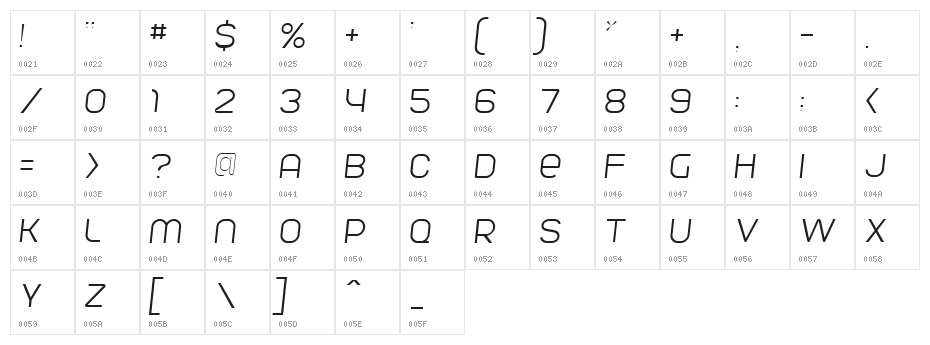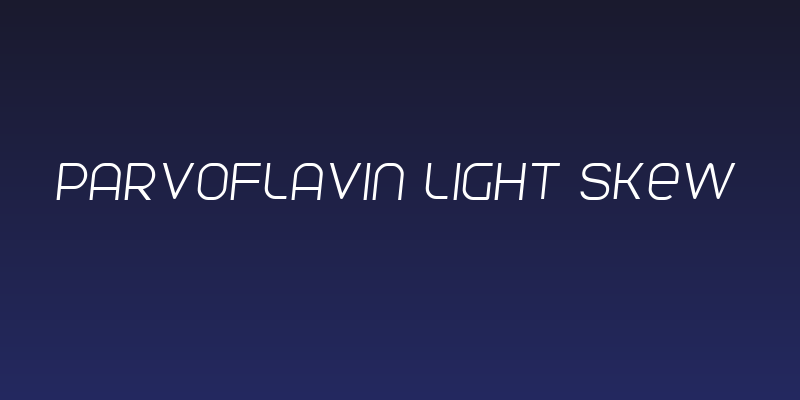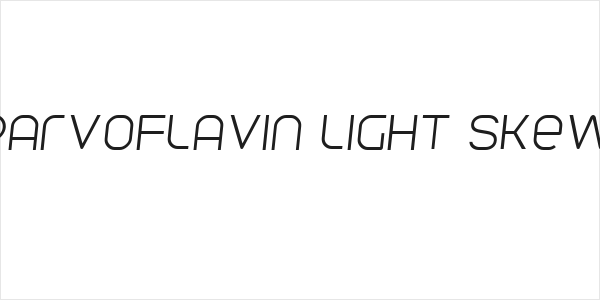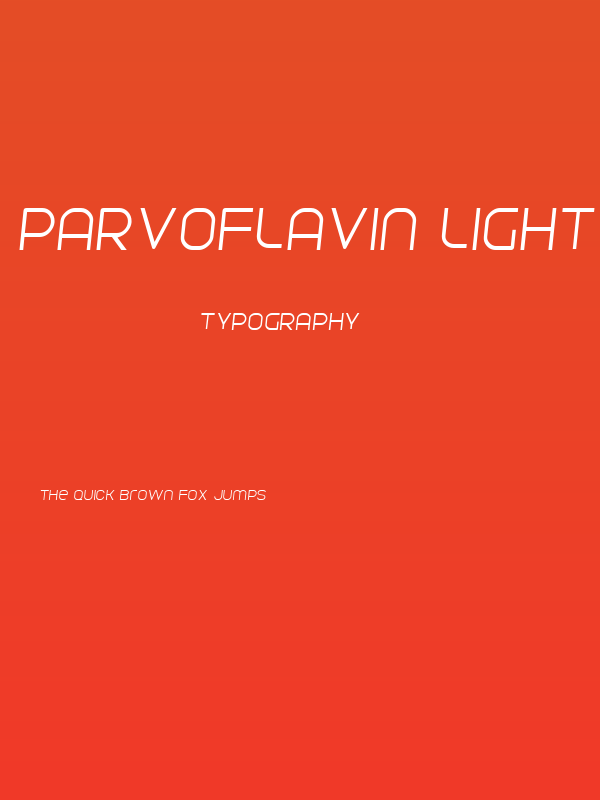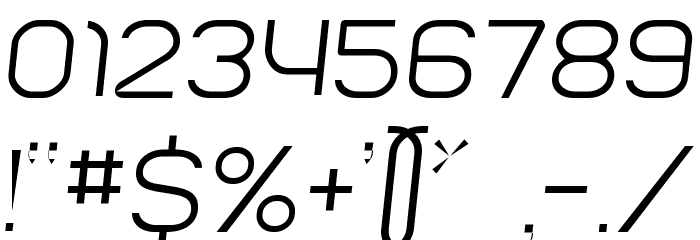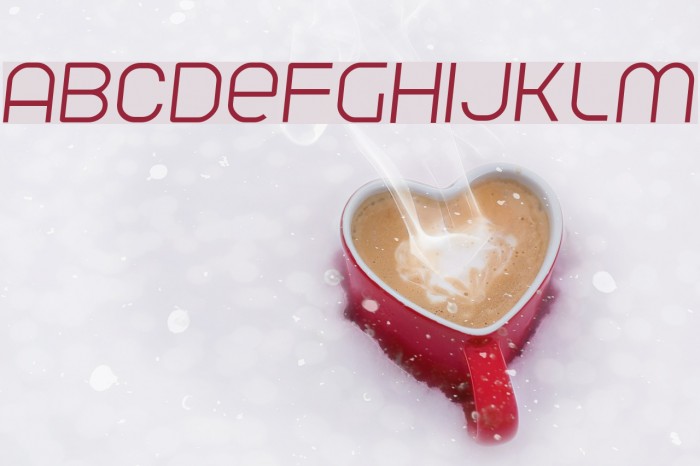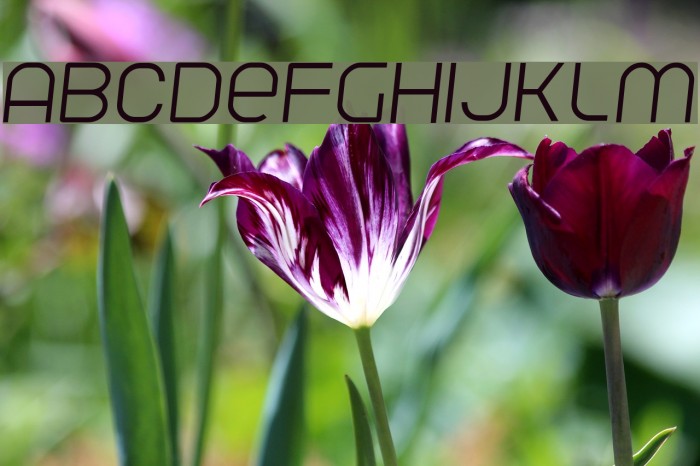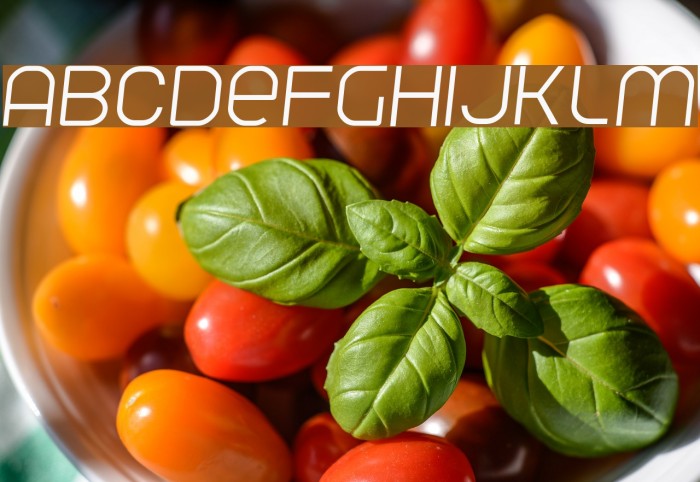
Parvoflavin Light Skew Font
Parvoflavin Light Skew Description
This font features a sleek and modern design with a slight skew, giving it a dynamic and forward-leaning appearance. The characters are crafted with clean lines and a consistent stroke width, contributing to a minimalist aesthetic. The uppercase and lowercase letters maintain a uniform height, while the numerals are proportionate and easy to read. Special characters are designed with the same attention to detail, ensuring they integrate seamlessly with the rest of the typeface. The overall style is contemporary, making it suitable for a variety of digital and print applications.
| Use Case | Headlines, Body text, Logos |
| Proposed Projects | Ideal for tech branding, modern websites, digital interfaces, and minimalist print designs. |